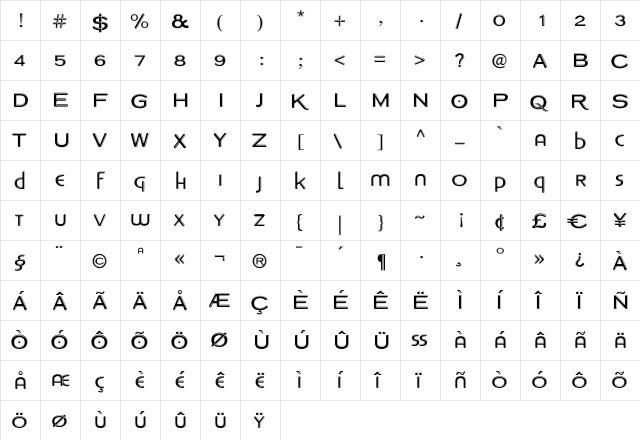
Copperplate Modern Plain Chrome Regular
Design Context for Copperplate Modern Plain Chrome Typeface
Copperplate Modern Plain Chrome is a composed and adaptable typeface that performs quietly and consistently across a wide range of design contexts.